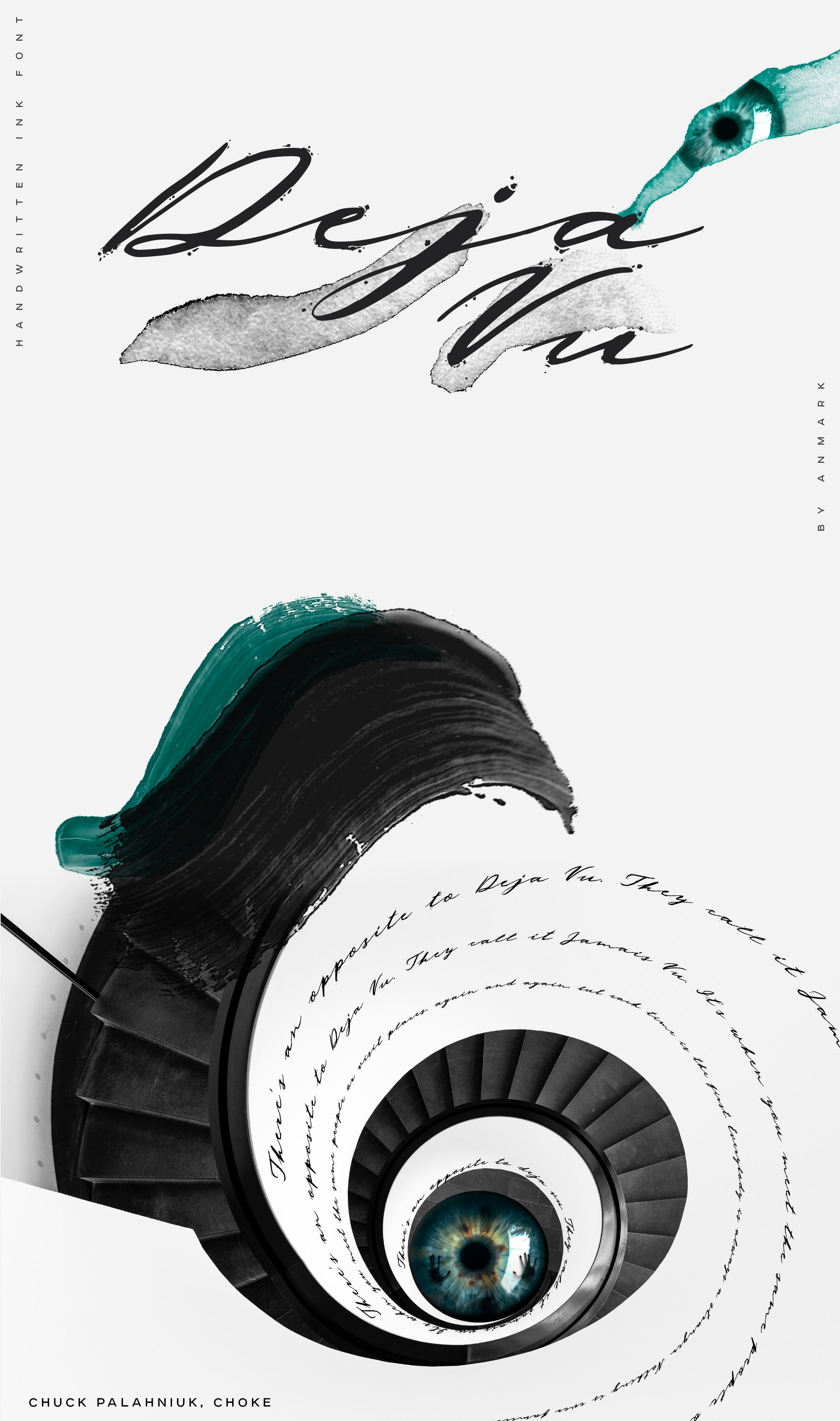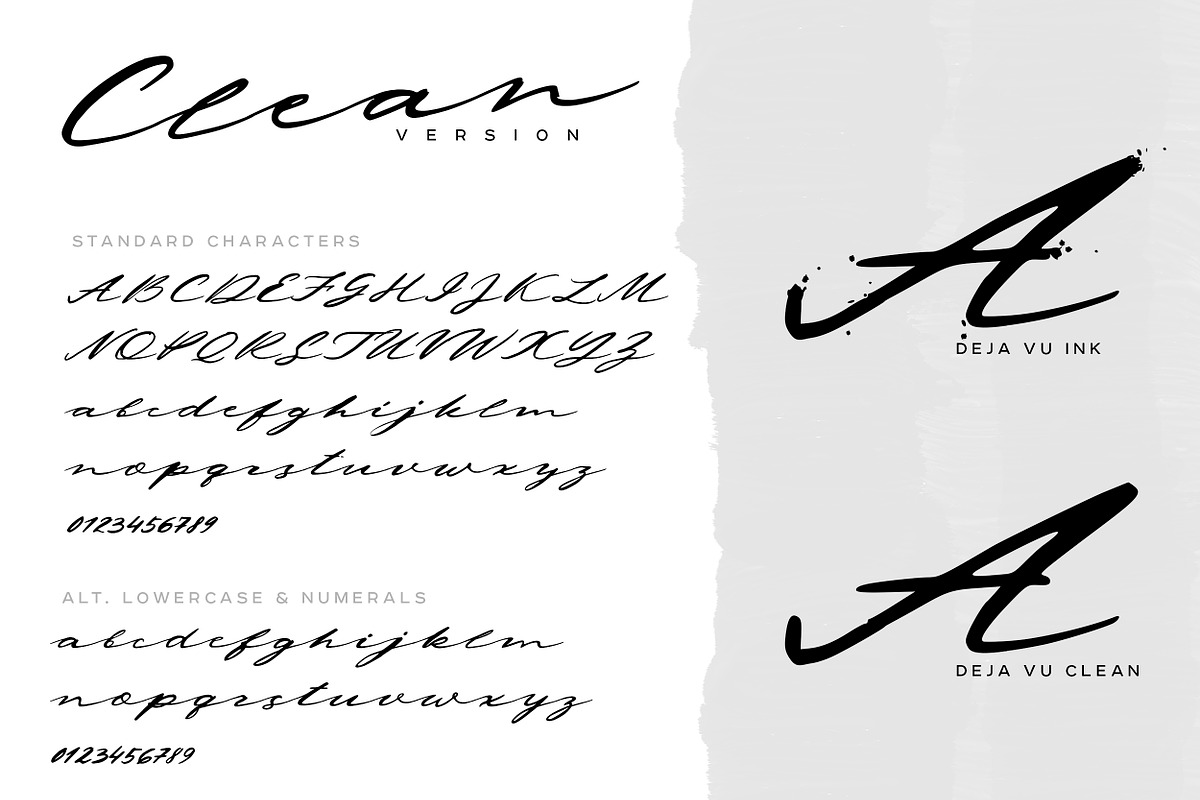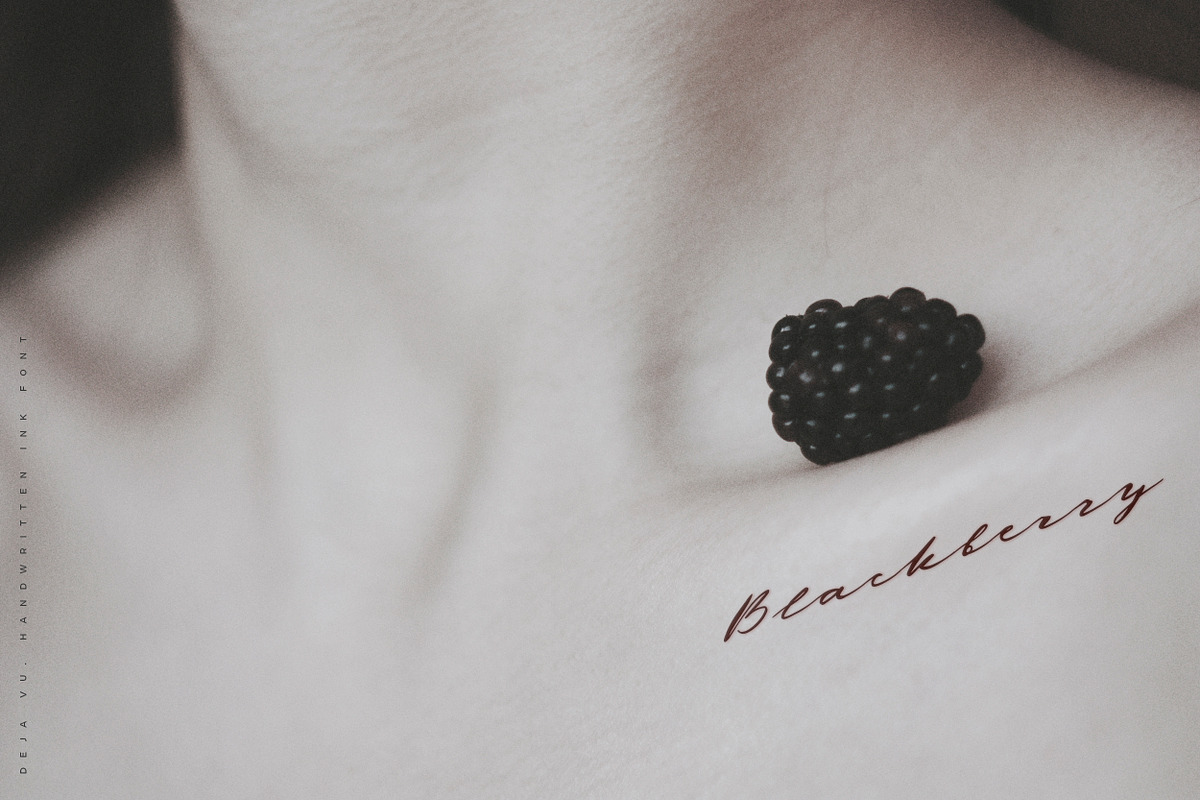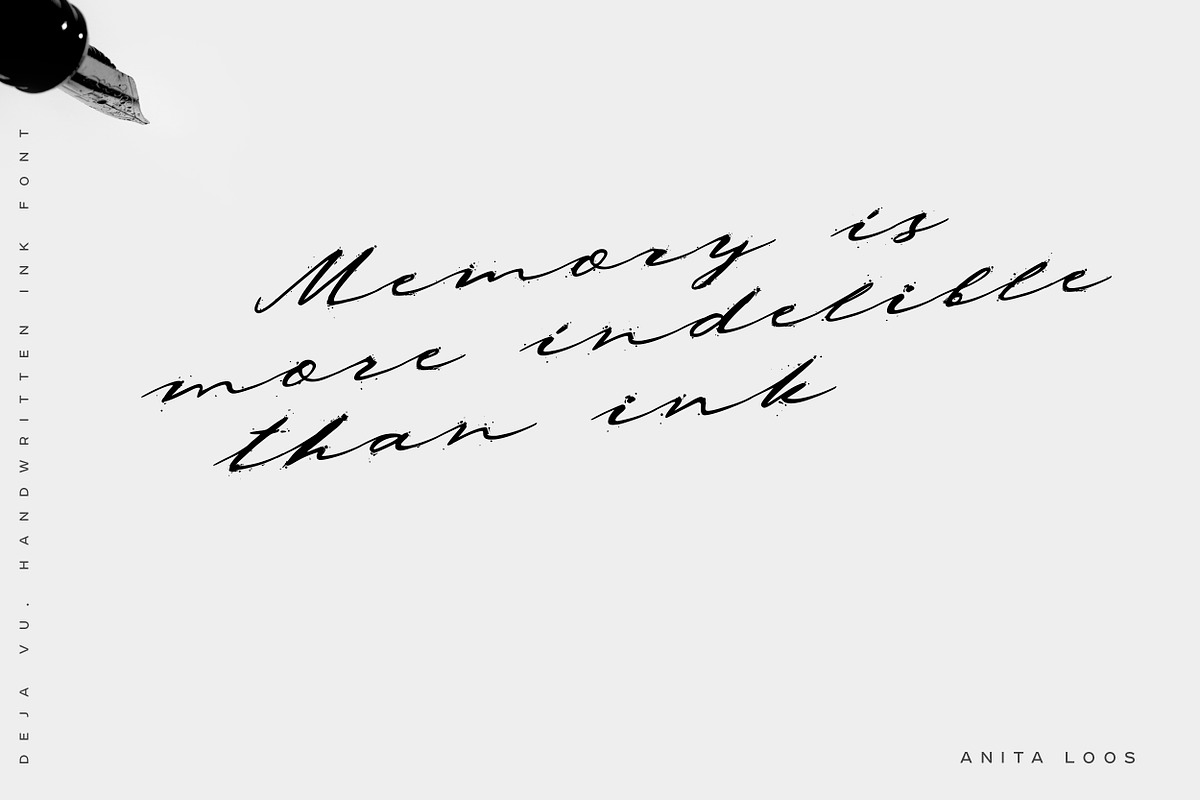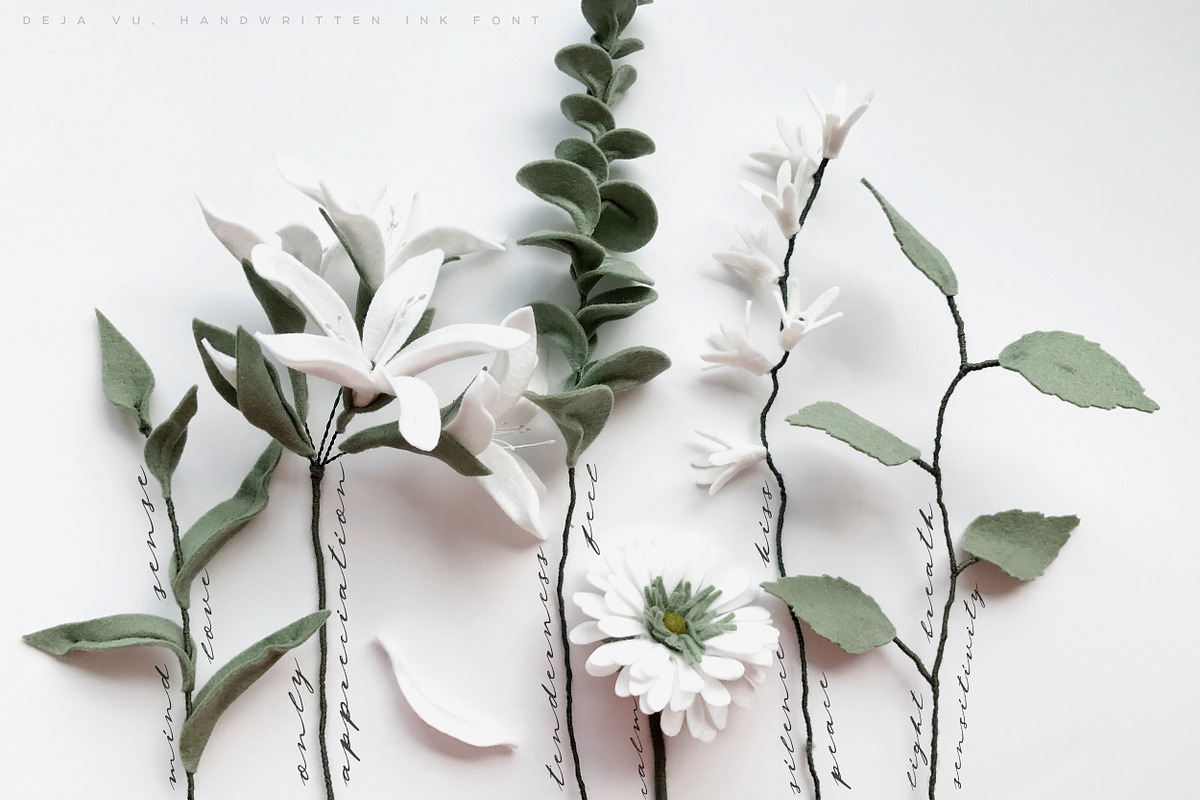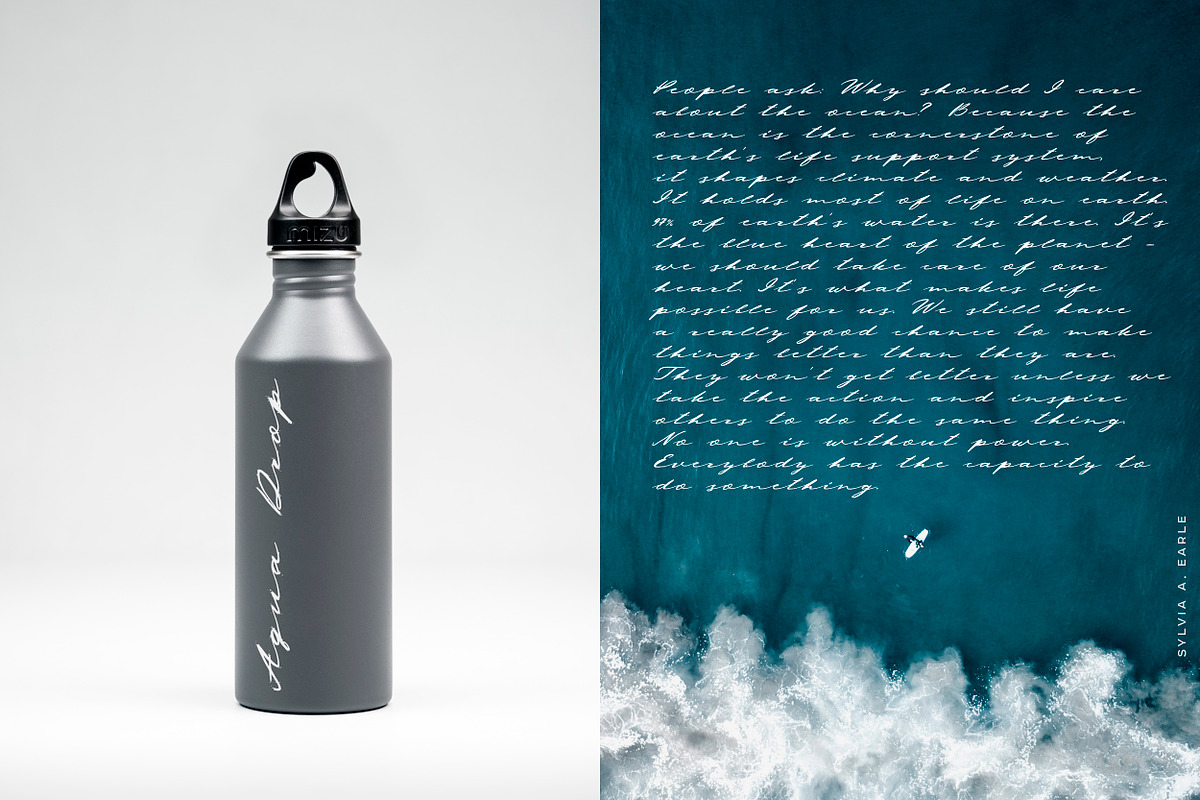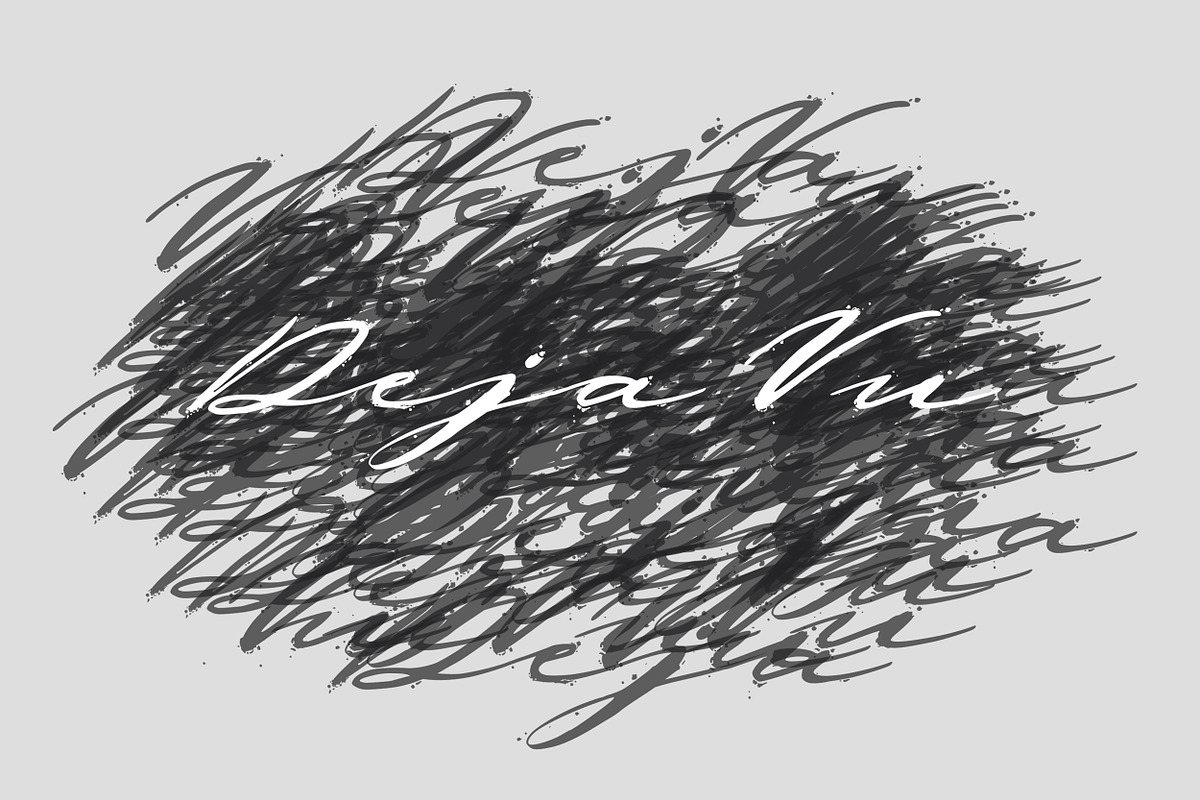
Deja Vu. Handwritten Ink Font
I’m pleased to introduce my handwritten ink font Deja Vu.
Deja Vu comes in two styles: Ink and Clean.
Deja Vu Ink is a splatter ink font. Each uppercase and lowercase letter has unique ink splashes. This decorative style is perfect for logotypes, branding projects, tattoo, packaging, social media, signatures, headers and many more...
Deja Vu Clean is an elegant feminine script font. Use this modern font for invitations, cards, packaging, social media, signatures, quotes, magazines and more. You can use it for long texts or short phrases.
Modern calligraphy uppercase letters are ideal for monograms and logos.
Both styles have a full set of lowercase alternates.
UPDATE: Deja Vu has now been updated to support Spanish, German, French, Italian, Portuguese, Swedish, Norwegian, Danish, Finnish and other (ÀÁÂÃÄÅÆÇÐÈÉÊËÌÍÎÏĨÑÒÓÔÕÖØŒŠ ÙÚÛÜŸÝŽ áàâãäåæçðèéêëìíîïĩıñòóôõöøœšùúûüýÿžß).